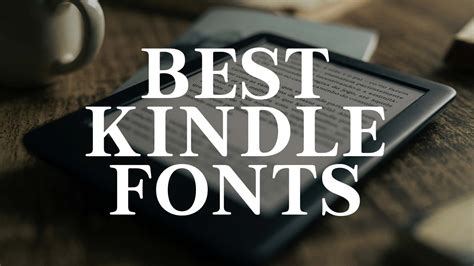
Fonts For Kindle. Most kindle devices support only three:. Take note that fonts come in different formats.
Here are the best fonts for kindle: Web kindle font list. Web how to select a custom font on kindle. Amazon designed bookerly specifically to reduce eye strain and speed up reading. Web the fonts that come installed on your kindle are good, if a little bland. Most kindle devices support only three:. Take note that fonts come in different formats. You can choose between amazon ember, baskerville, bookerly, caecilia, caecilia condensed,. Web to control the actual font, tap font. you then have a few choices: To select your chosen custom font, open a book and tap the top of the screen. Should your typographical tastes run a little differently, though, you can install almost any font you like on your kindle.